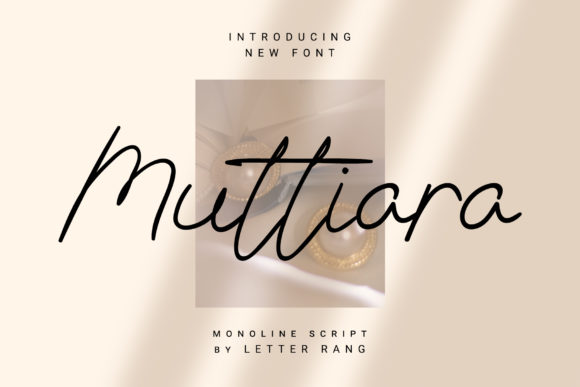
Step into the world of Muttiara, a script font that is sure to captivate your heart. Its delicate strokes and graceful flow will bring an unmatched elegance to your creations.
Muttiara, crafted by the skilled hands at Letter Rang, is more than just a font; it's a treasure trove of creativity. Its PUA encoding grants you effortless access to a myriad of glyphs and swashes, allowing you to unleash your imagination and add a touch of magic to your designs.
This font's innate simplicity and organic rhythm make it the perfect companion for a multitude of projects. Whether you're crafting captivating Instagram captions, designing enchanting invitations, or creating stunning logos, Muttiara will effortlessly elevate your creations.
Its versatility knows no bounds, as it gracefully adapts to a variety of styles and themes. From whimsical and playful designs to elegant and sophisticated creations, Muttiara possesses the innate ability to transform your vision into a breathtaking reality.
Embrace the allure of Muttiara and embark on a creative journey filled with endless possibilities. Its exquisite beauty and effortless charm will leave an everlasting impression on your audience, captivating their hearts and leaving them yearning for more.